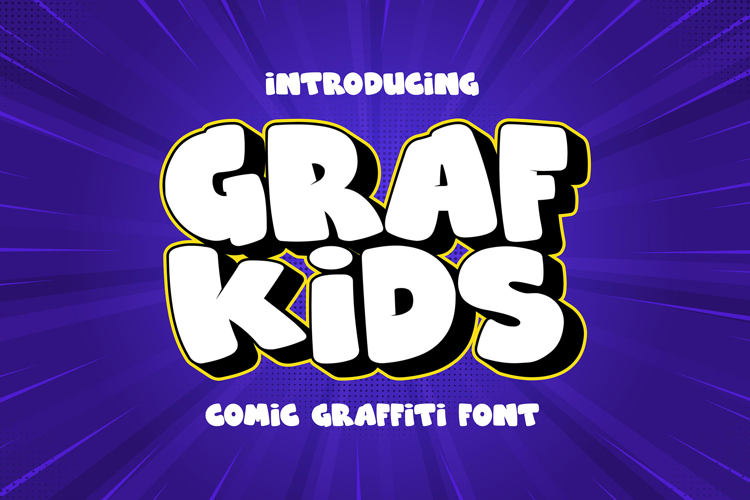
Grafkids - Comic Graffiti Font
Grafkids is a playful comic graffiti font that blends bold street art with whimsical comic style, perfect for projects that need a fun, youthful edge.
🎨 Comic Graffiti Fusion: Grafkids combines the lively energy of graffiti with the clean lines of comic art, making it ideal for kids’ projects, playful branding, and eye-catching posters.
🖍️ Vibrant and Bold: Its chunky letters and dynamic shapes make your designs pop, delivering a bold visual impact while keeping a light-hearted tone.
🚀 Versatile Creativity: Whether you're creating merchandise, stickers, or urban-themed artwork, Grafkids adds a unique, street-smart touch to any creative project.
Bring your designs to life with Grafkids and let your creativity run wild with its fun, comic-inspired graffiti style!